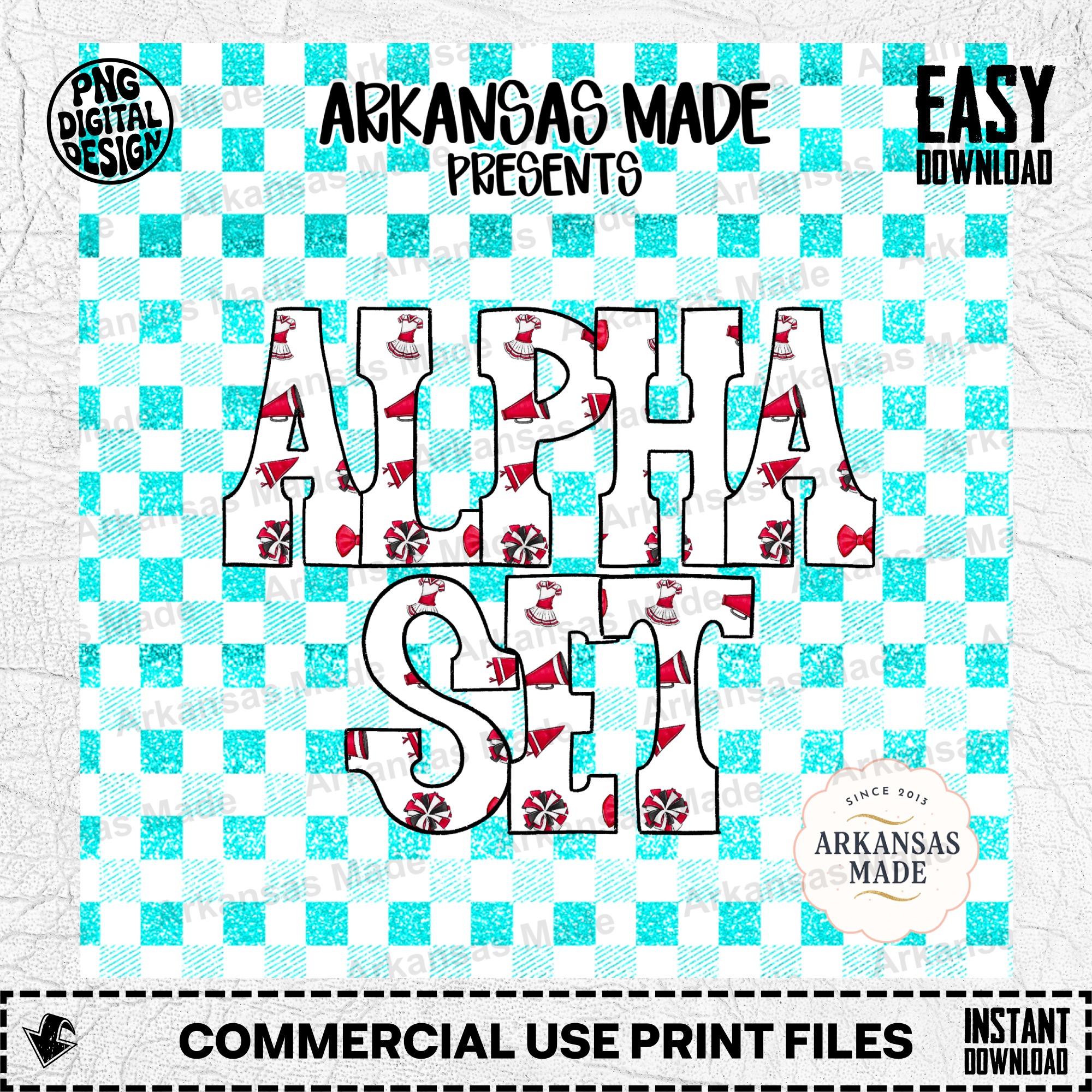
Unleash team spirit with our vibrant Cheer Alpha PNGs! This digital download features bold red, black, and white cheerleading clipart, perfect for custom designs, spirit wear, and school projects. Ideal for cheer moms, coaches, and sports enthusiasts, these varsity-style letters will elevate any DIY creation, from custom apparel to game day banners. Crafters and designers can easily celebrate team pride, victories, and school spirit with this powerful athletic aesthetic.